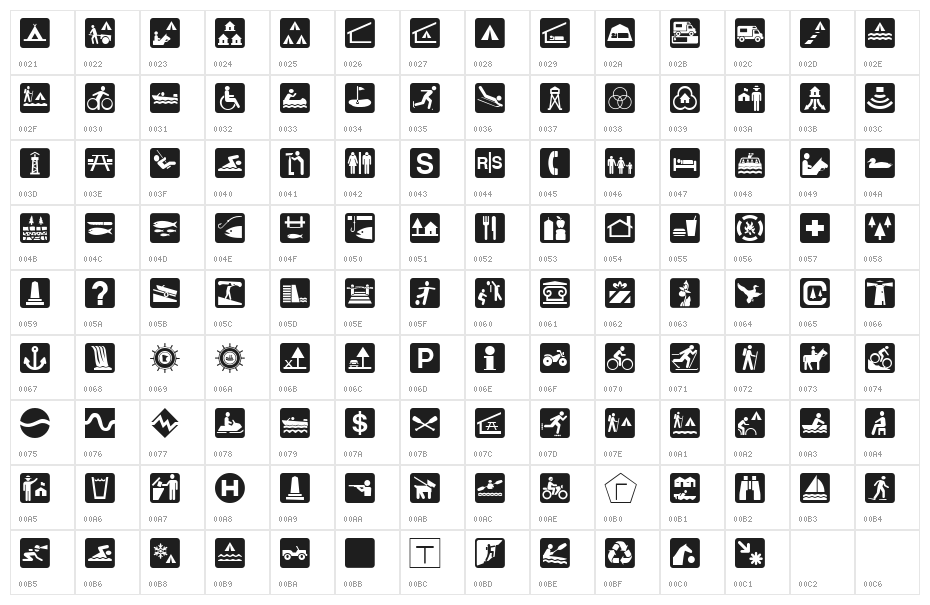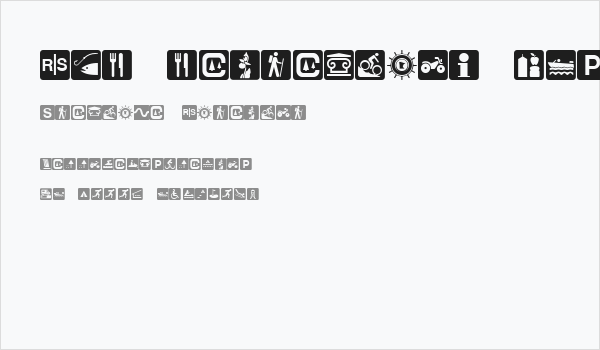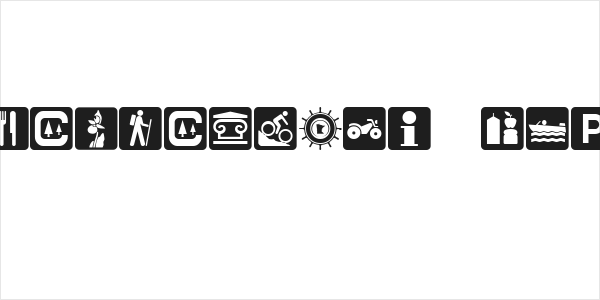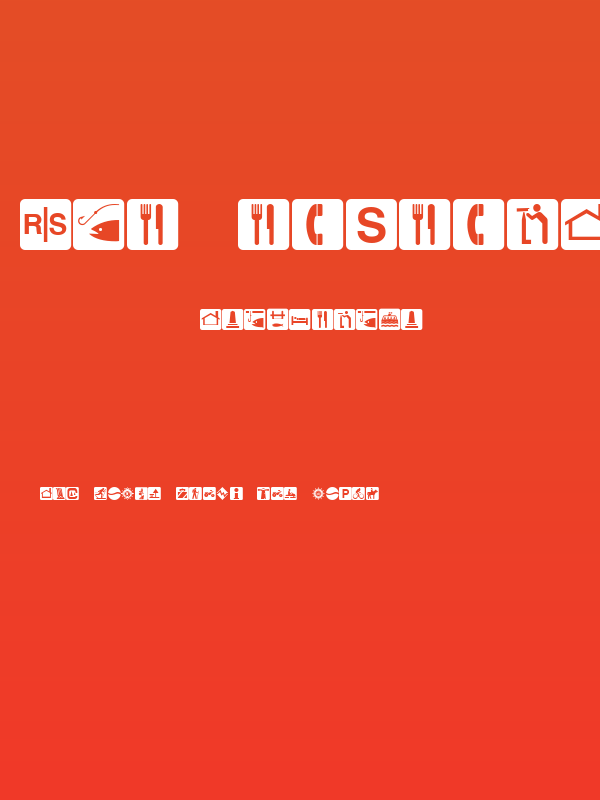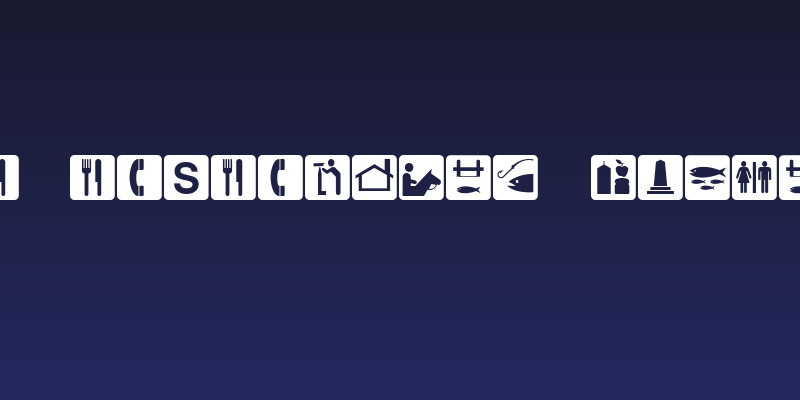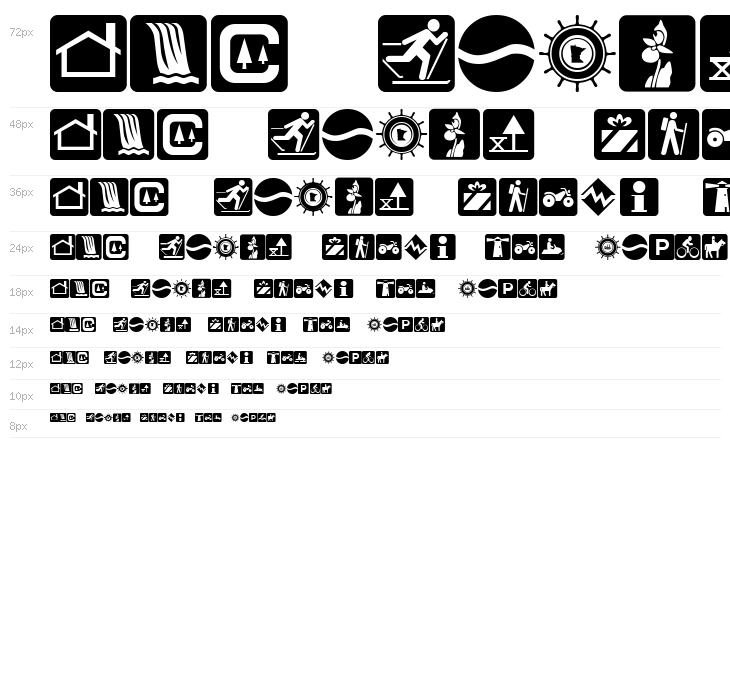
DNR Recreation Symbols Font
DNR Recreation Symbols Description
A set of pictographic recreation and wayfinding symbols designed for signage, featuring simple, high-contrast white icons on black rounded square backgrounds. The symbols include representations of activities, amenities, and facilities such as restrooms, camping, hiking, swimming, fishing, accessibility, and more. The style is utilitarian and highly legible, prioritizing clarity and universal recognition.
Overall StyleModern, Utilitarian
Use CaseSignage, Maps, Informational graphics, Wayfinding
Proposed ProjectsPark and trail signage, recreation maps, visitor guides, wayfinding systems, public facility directories.